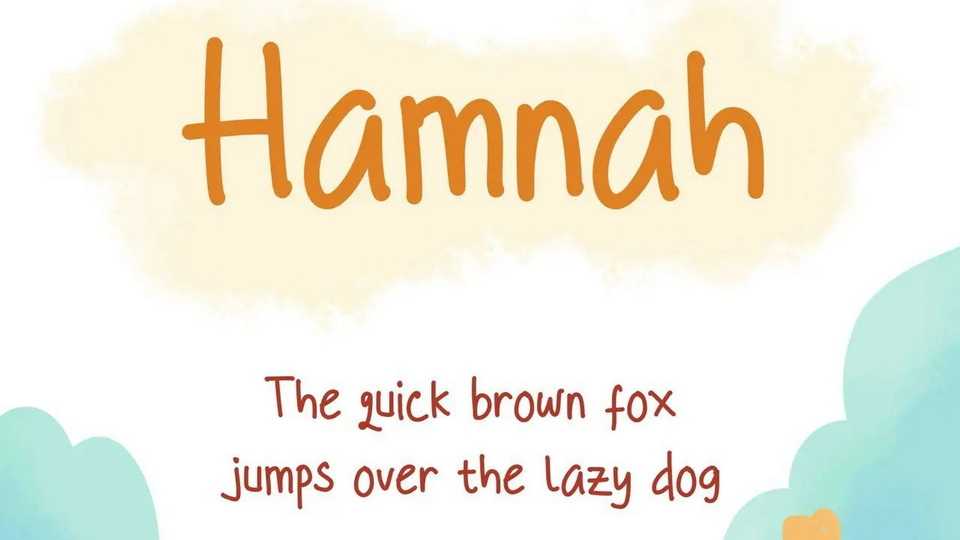
Download Hamnah font, a fun, whimsical hand drawn typeface. Hamnah is perfect for a storybook, comic, notes, quotes, social media and so on.
Designer: Arnida Sharah Auli